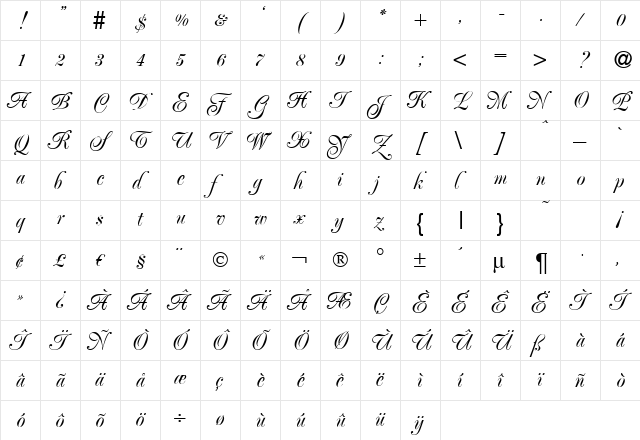
PoemExclusive Regular
Design Context for PoemExclusive Typeface
PoemExclusive is a composed and adaptable typeface that performs quietly and consistently across a wide range of design contexts.